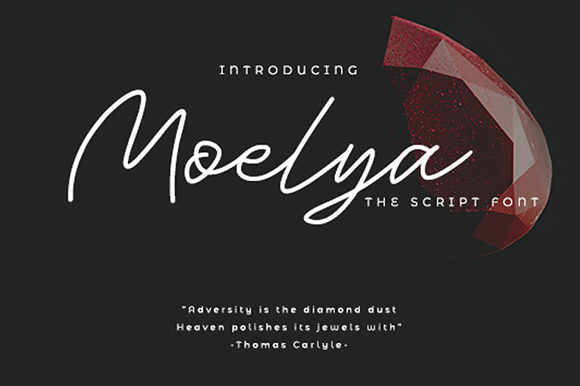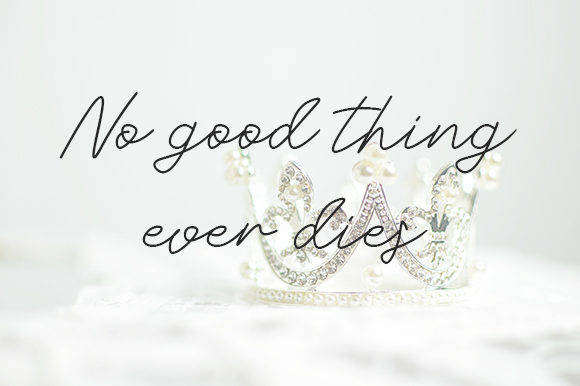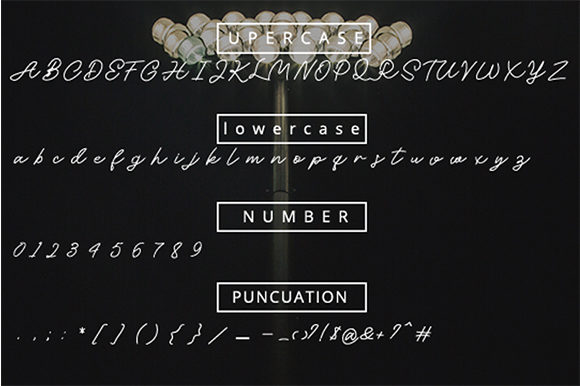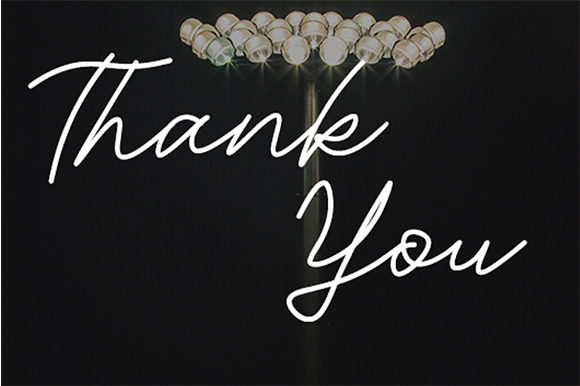
HomeScript FontsMoelya Font Script Fonts Moelya Font FacebookXPinterestWhatsApp Moelya Font Poster 2 Moelya Font Poster 3 Moelya Font Poster 4 About Moelya Font Moelya is a unique handwritten font, full of energy. Use it to add an authentic touch to any design project! DOWNLOAD NOW People also explored Minibubble Font Kover Font Moccalast Font Ameliya Font Christmas Font Baby Cute Font Morales Font Taurus Sense Font Gasika Font 303 0 TagsMoelya Font Previous articleGluttony FontNext articleStoner Font LEAVE A REPLY Cancel reply Comment: Please enter your comment! Name:* Please enter your name here Email:* You have entered an incorrect email address! Please enter your email address here Website: Save my name, email, and website in this browser for the next time I comment. Personal Use Free Aline Personal Use Free Read more about this font Kumadinya Personal Use Free Read more about this font The Sweet Neo Personal Use Free Read more about this font Austins Personal Use Free Read more about this font BLOG Where to Buy American Fonts Online in 2024 Where to Buy American Fonts Online: The Ultimate Guide for 2024 Looking for the perfect American font to elevate your design projects? You're in the... Elegant Wedding Invitation Fonts – Handwritten & Script Fonts Best Fonts for T-Shirt Design – Top 2025 Picks Exploring Font Trends